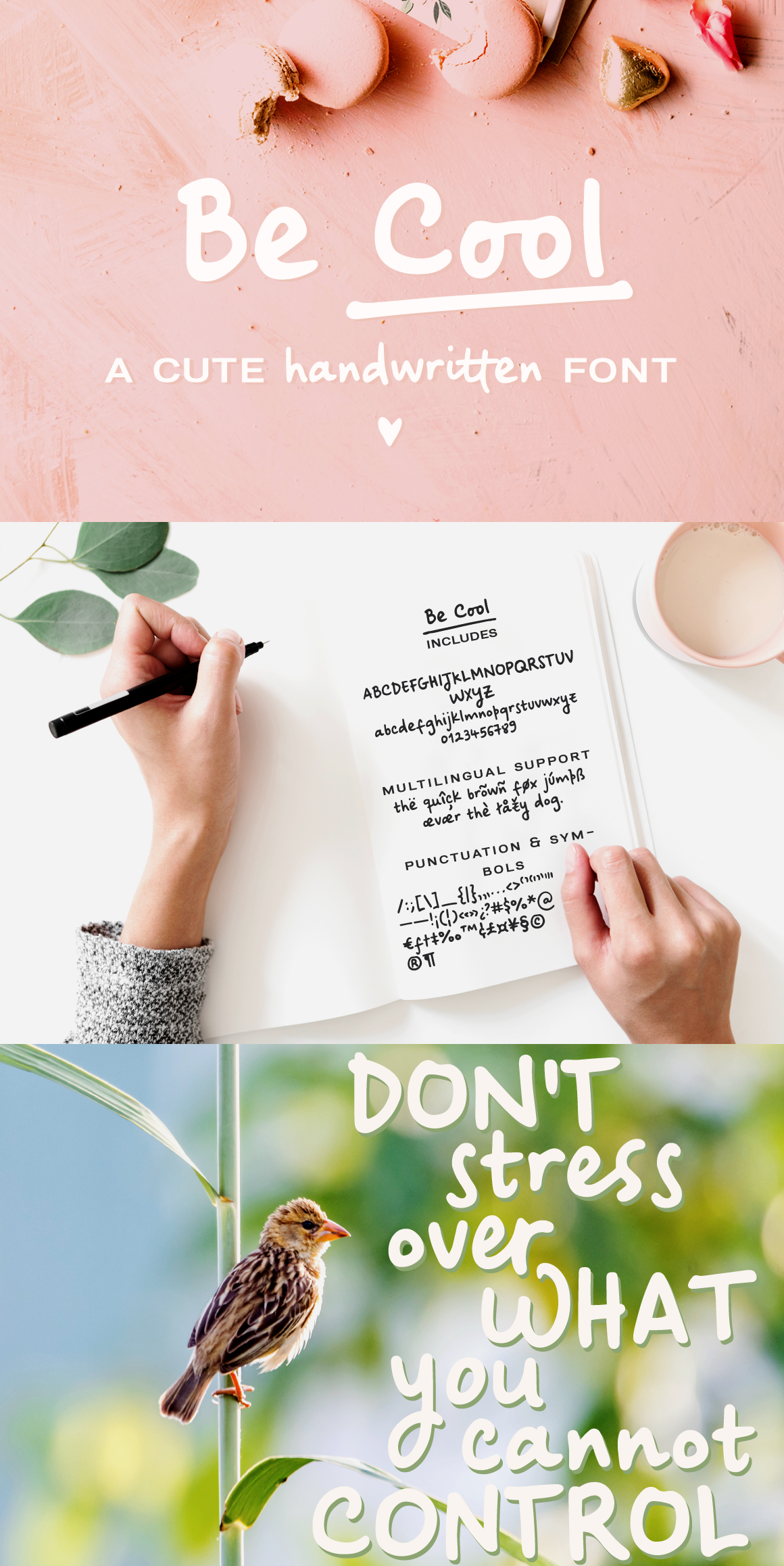
Be Cool handwritten sans font
Be Cool is a cute handwritten font with:
- An alternate character set (A-Z, a-z)
- An extra set of swashes and ornaments to help decorate your text
This font includes:
- A-Z, a-z, numbers and punctuation
- Dozens of ligatures that give it a true handwritten feel
Use Be Cool in any design that needs a handwritten feel, such as signatures, notes and quotes, logos and branding.